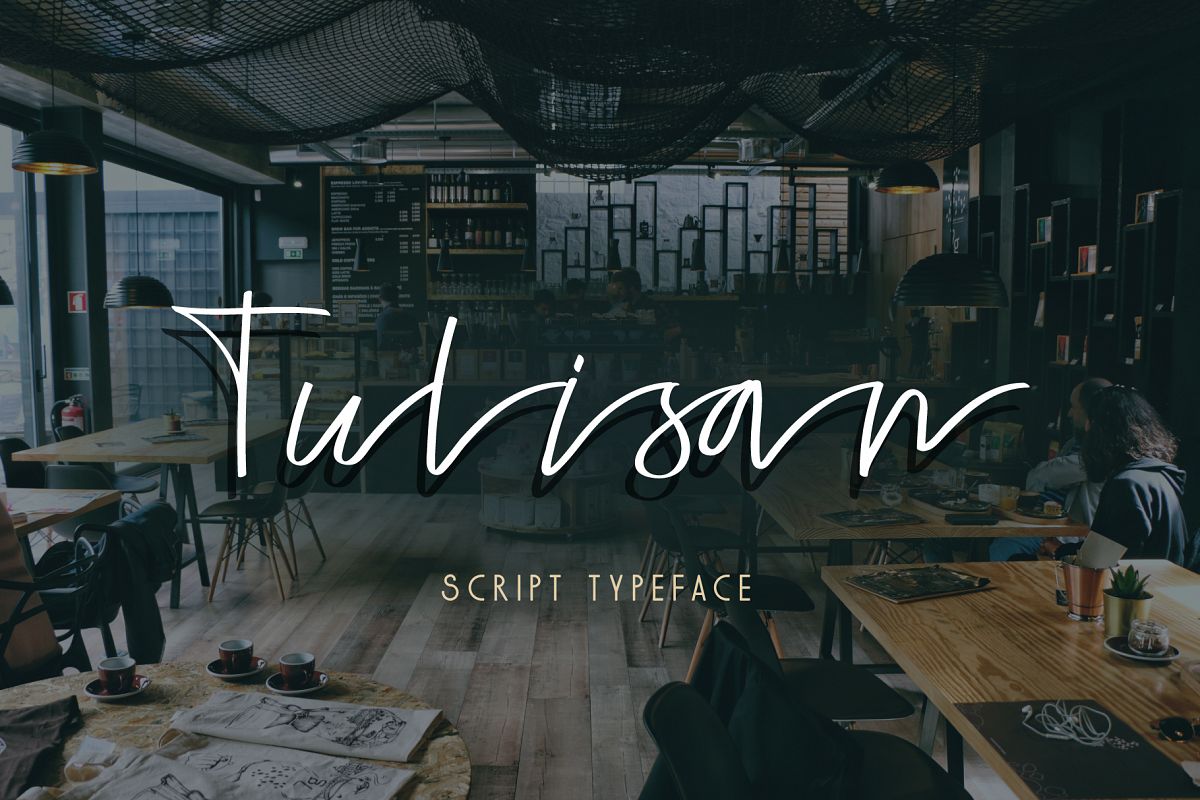
Tulisan
Tulisan-Regular
Introducing the Tulisan Script Typeface!
Tulisan is handwriting as it is, accentuating the original side of human handwriting. The typeface includes uppercase, lowercase, numbers and punctuation. Very suitable foryour business card, logo, headline, etc.What's Included: